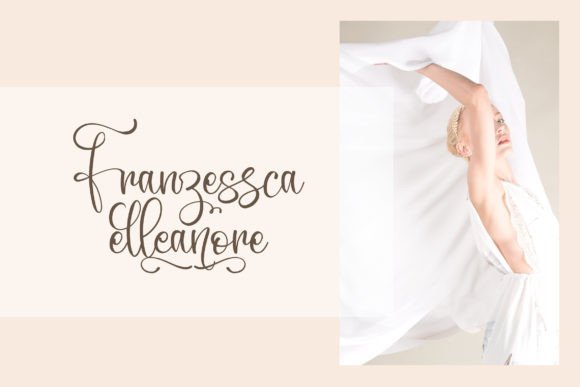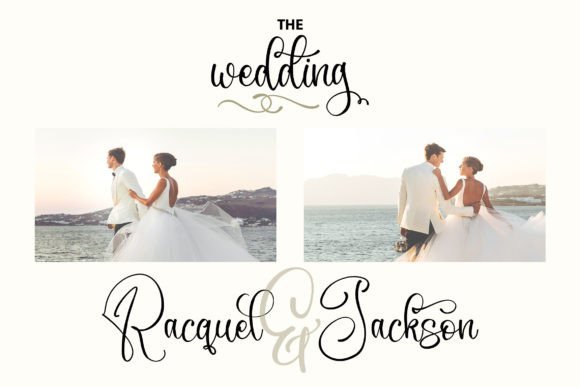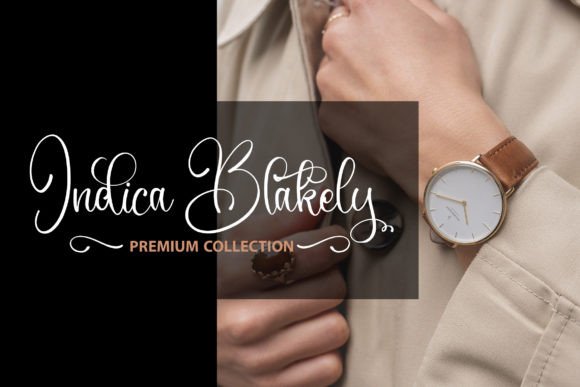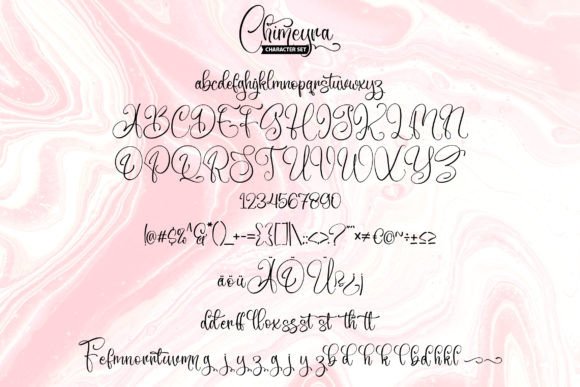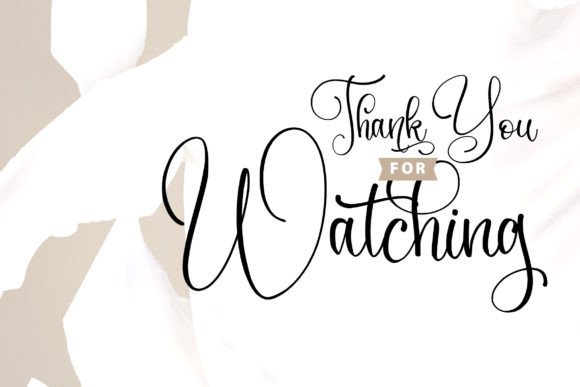
Chimeyra Font
About Chimeyra Font
**Chimeyra: A Dazzling Script Font**
**Chimeyra** is a dazzling script font that captivates with its meticulously crafted and highly detailed design. This font is a valuable asset for your font library, capable of enhancing a wide range of creative projects, regardless of the topic or theme.
The intricate and detailed script letterforms of **Chimeyra** make it stand out as a unique and eye-catching choice. It exudes an air of elegance and sophistication, making it an ideal choice for projects that demand a distinctive and refined appearance.
**Chimeyra** has the potential to elevate your creations in various applications. Whether you’re working on invitations, branding, packaging, posters, or any other design project, this font adds a level of intricacy and charm to your work.
For invitations and event-related designs, **Chimeyra** enhances the celebratory and luxurious aspects of your projects, setting a memorable tone for special occasions.
In branding and packaging, this font ensures that your products and visual identity stand out with a sense of refinement and detail, leaving a lasting impression on your audience.
In conclusion, **Chimeyra** is more than just a font; it’s a design asset that brings dazzle and refinement to your creative projects. Whether you’re designing for special events, branding, or various other contexts, choose **Chimeyra** to infuse your work with its intricate and captivating charm. Embrace its detailed beauty, and let your creativity shine with sophistication.